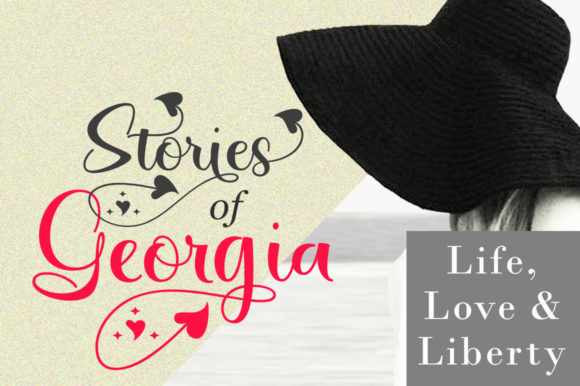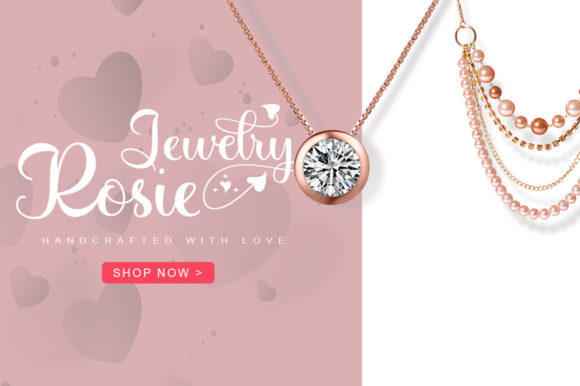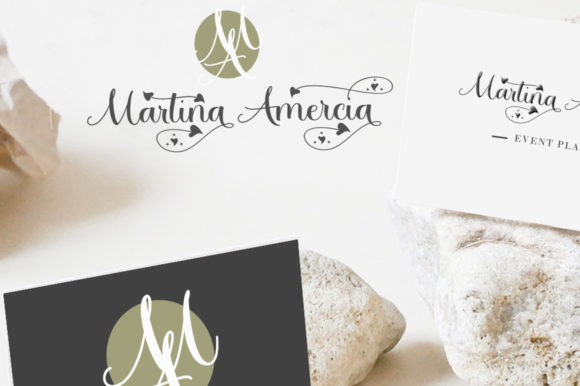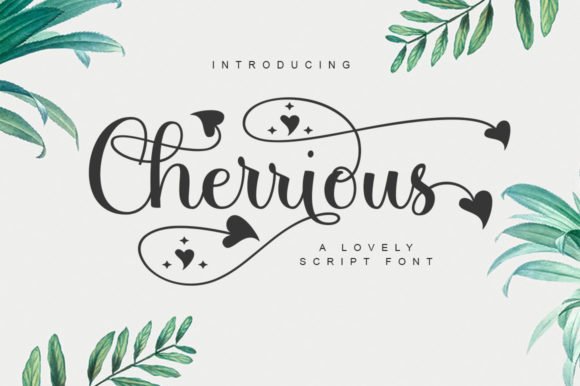
Introduction to Cherrious Script Font
Cherrious Script is a magical script font carefully created with a touch of elegance.
This font is PUA encoded which means you can access all of the glyphs and swashes with ease .
Key Features of Cherrious Script Font